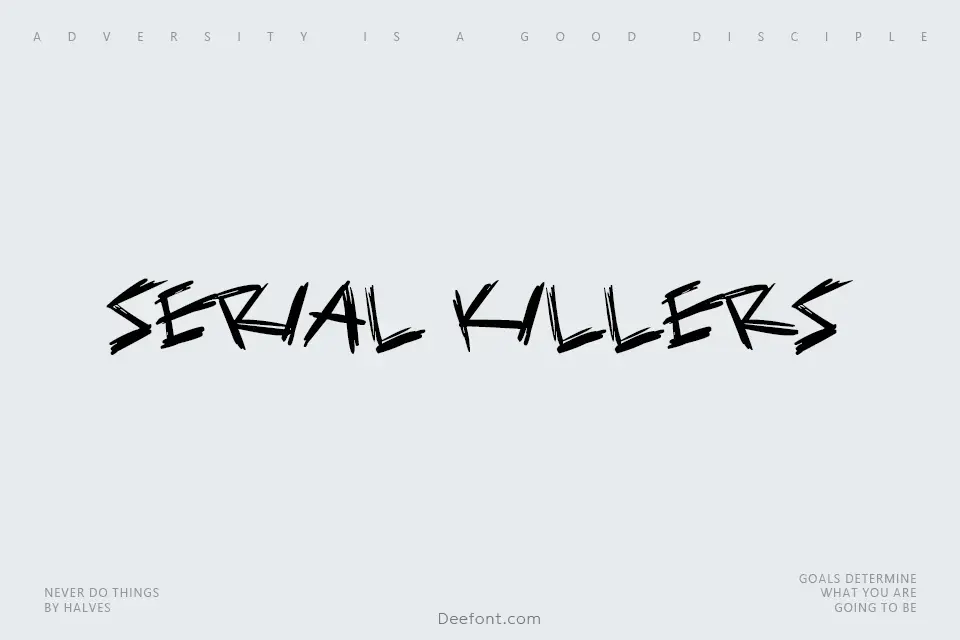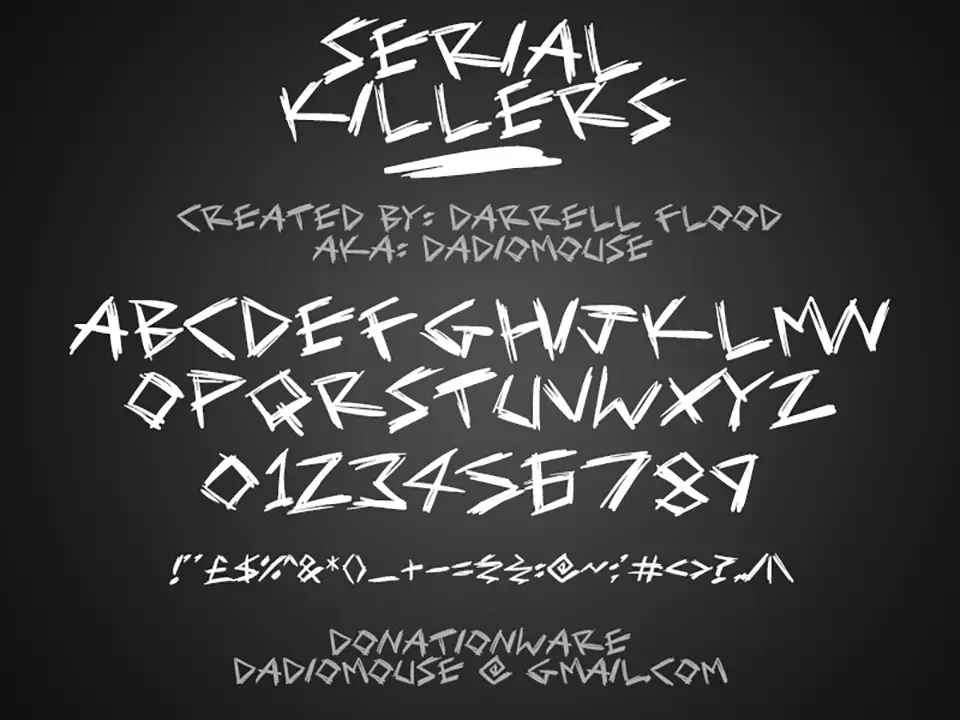
Serial Killers Font
Serial Killers is a chilling script font designed by Darrell Flood. Defined by its jagged edges and chaotic, trash-style strokes, this typeface captures the essence of pure horror. It is an excellent choice for scary movie posters, Halloween party invitations, and dark, atmospheric designs that require a frantic, handwritten look.